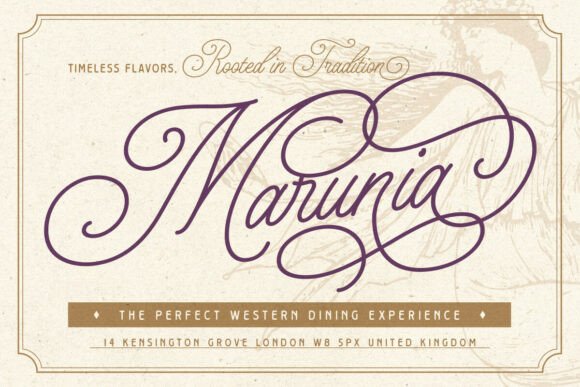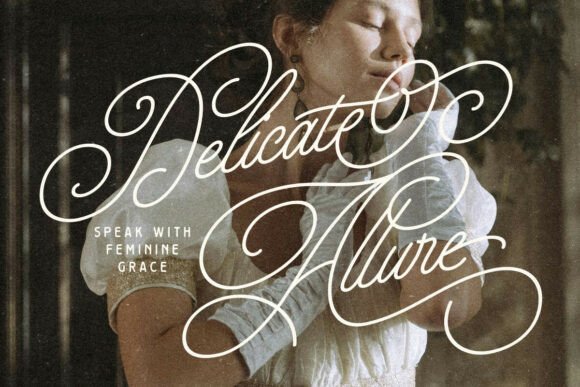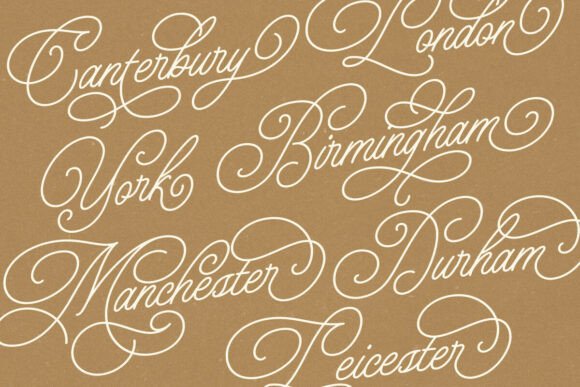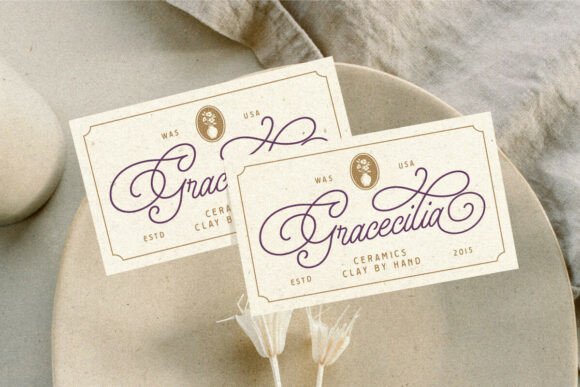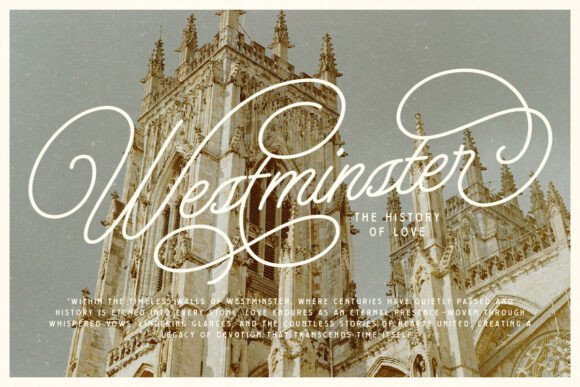
Introducing Daintyline: The Ultimate Monoline Script Font for Elegant Branding
In the world of typography, a well-crafted font can elevate your brand’s aesthetic and leave a lasting impression on your audience. If you’re looking for a typeface that exudes sophistication, elegance, and refinement, look no further than Daintyline, a brand new monoline script font that redefines the art of beautiful lettering.
The Essence of Classic Victorian Calligraphy with a Modern Twist
Daintyline is characterized by its consistent line weight and ethereal, sweeping flourishes that evoke the essence of classic Victorian calligraphy. However, this font takes a bold step into the modern era with its clean, streamlined design that effortlessly blends tradition with contemporary style. The result is a typeface that feels both timeless and cutting-edge, perfect for designers and crafters seeking to create bespoke lettering for their projects.
Professional Features for Endless Creative Possibilities
What sets Daintyline apart from other script fonts is its impressive array of professional features. This font is packed with beautiful alternates and seamless ligatures, allowing you to add a touch of uniqueness to every piece of lettering you create. Whether you’re designing a logo, crafting a social media aesthetic, or working on a luxury branding project, Daintyline provides the versatility and flexibility you need to bring your vision to life.
Luxury Branding and Beyond: Perfect Applications for Daintyline
Daintyline is an extraordinary choice for a variety of applications where elegance and sophistication are paramount. Some of the perfect uses for this stunning monoline script font include:
- Luxury boutique branding: Elevate your high-end fashion or jewelry brand with Daintyline’s refined and sophisticated lettering.
- High-end wedding stationery: Create exquisite wedding invitations, save-the-dates, and more with this beautiful font.
- Premium cosmetic packaging: Add a touch of luxury to your beauty products with Daintyline’s elegant typography.
- Elegant editorial headers: Use Daintyline to create stunning headers and titles for your editorial projects, such as magazines, blogs, and more.
Timeless Prestige and Artisanal Beauty for Your Visual Storytelling
Whether you’re designing a signature-style logo or a delicate social media aesthetic, Daintyline delivers a sense of timeless prestige and artisanal beauty to your visual storytelling. This font is more than just a typeface – it’s a tool that allows you to craft compelling narratives, evoke emotions, and connect with your audience on a deeper level.
Why Choose Daintyline?
So, why should you choose Daintyline for your next project? Here are just a few compelling reasons:
- Unique and versatile: Daintyline offers a distinctive and flexible design that can be adapted to a wide range of applications.
- Professional features: With its extensive set of alternates and ligatures, Daintyline provides the creative freedom you need to produce exceptional lettering.
- Elegant and sophisticated: This font exudes refinement and luxury, making it perfect for high-end branding and editorial projects.
- Easy to use: Daintyline is designed to be user-friendly, allowing you to focus on your creative vision rather than technical complexities.
In conclusion, Daintyline is a game-changing monoline script font that has the power to elevate your brand’s aesthetic and transform your visual storytelling. With its perfect blend of classic elegance and modern sophistication, this font is an indispensable tool for designers and crafters seeking to create beautiful, bespoke lettering. Whether you’re working on a luxury branding project, high-end wedding stationery, or elegant editorial headers, Daintyline is the perfect choice for those who demand the very best.